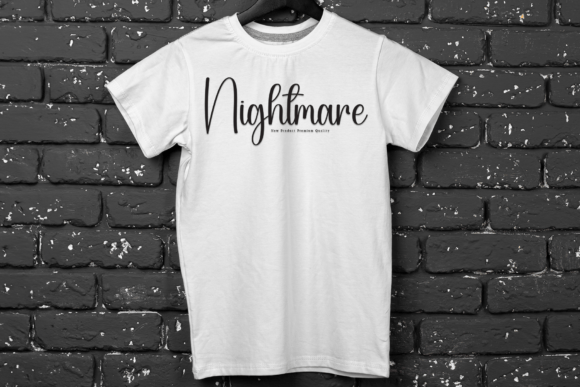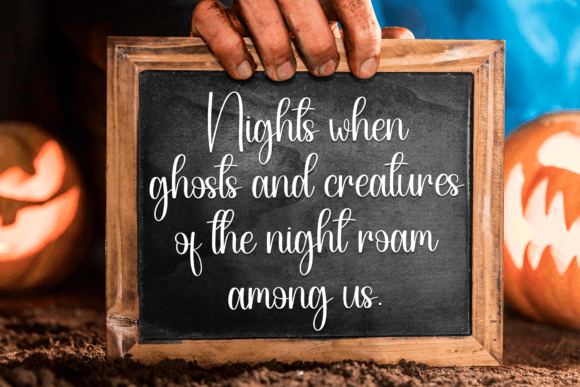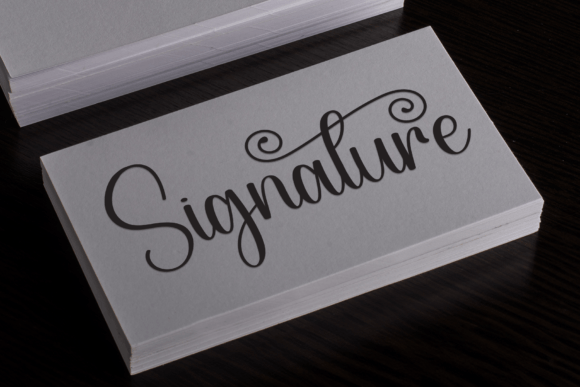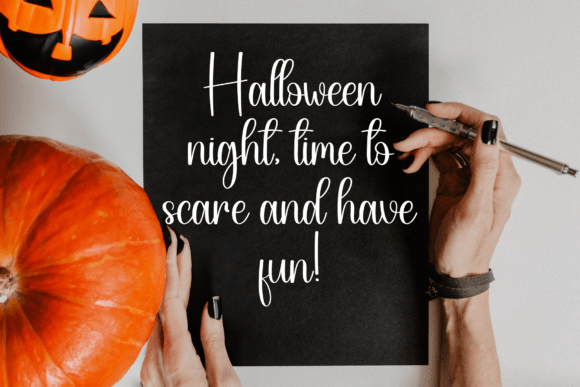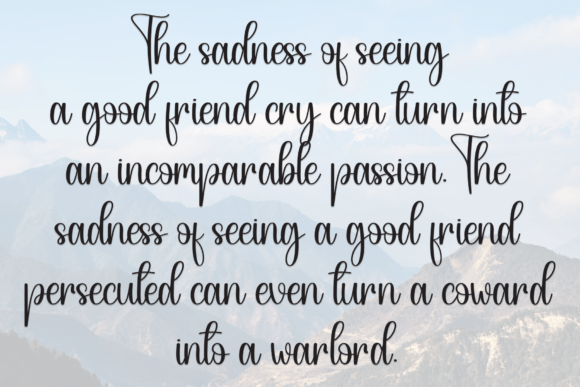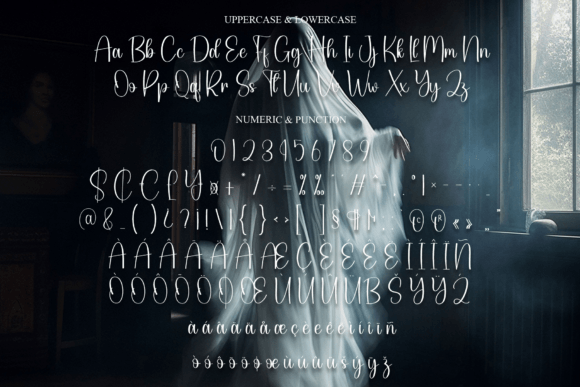
Introducing Ghosting Font: The Playful Handwritten Style for Your Designs
Are you tired of using the same old fonts for your designs? Do you want to add a personal touch to your notes, invitations, and creative projects? Look no further than Ghosting Font, a playful handwritten font that is sure to bring a friendly and casual style to your work.
What is Ghosting Font?
Ghosting Font is a unique and charming font that features smooth, flowing letters that look like they were written with a pen. The font has a warm and inviting feel, making it perfect for designers and crafters who want to add a personal touch to their work.
Characteristics of Ghosting Font
- Playful and Handwritten: Ghosting Font has a playful and handwritten style that is perfect for designs that require a personal touch.
- Smooth and Flowing Letters: The font features smooth and flowing letters that look like they were written with a pen.
- Warm and Inviting: Ghosting Font has a warm and inviting feel, making it perfect for designs that require a friendly and casual style.
- Versatile: The font is versatile and can be used for a variety of designs, including notes, invitations, and creative projects.
Why Use Ghosting Font?
There are many reasons why you should consider using Ghosting Font for your designs. Here are a few:
- Adds a Personal Touch: Ghosting Font adds a personal touch to your designs, making them feel warm and inviting.
- Perfect for Creative Projects: The font is perfect for creative projects, such as crafting, scrapbooking, and DIY projects.
- Easy to Read: Ghosting Font is easy to read, making it perfect for designs that require a clear and legible font.
- Unique and Charming: The font is unique and charming, making it perfect for designers who want to stand out from the crowd.
How to Use Ghosting Font
Using Ghosting Font is easy. Here are a few tips:
- Pair with Other Fonts: Pair Ghosting Font with other fonts to create a unique and interesting design.
- Use for Headings and Body Text: Use Ghosting Font for headings and body text to create a cohesive and stylish design.
- Add to Your Designs: Add Ghosting Font to your designs to add a personal touch and make them feel warm and inviting.
Design Ideas Using Ghosting Font
Here are a few design ideas that you can use Ghosting Font for:
- Invitations: Use Ghosting Font to create invitations for parties, weddings, and other special events.
- Notes and Letters: Use Ghosting Font to write notes and letters to friends and family.
- Crafting and Scrapbooking: Use Ghosting Font to add a personal touch to your crafting and scrapbooking projects.
- DIY Projects: Use Ghosting Font to add a personal touch to your DIY projects, such as signs, labels, and cards.
Ghosting Font is a playful handwritten font that is perfect for designers and crafters who want to add a personal touch to their work. With its smooth and flowing letters, warm and inviting feel, and versatile style, Ghosting Font is sure to become a favorite font in your collection. So why not give it a try and see how it can add a personal touch to your designs?